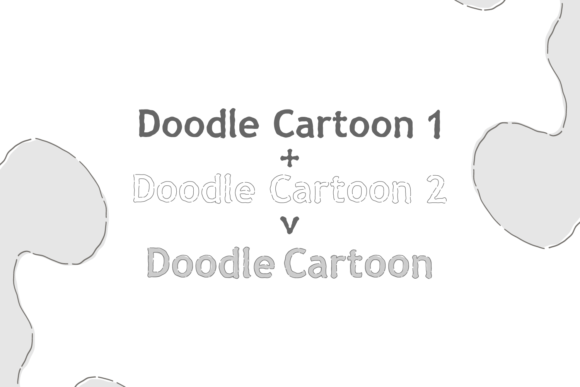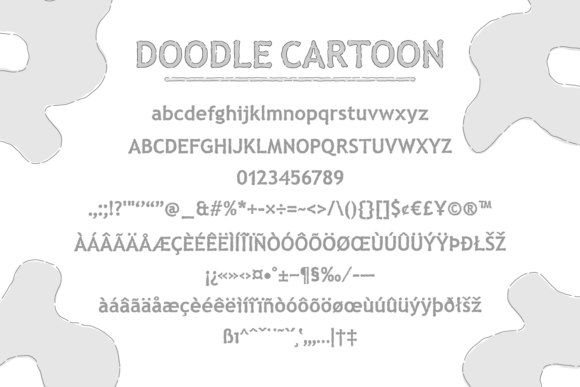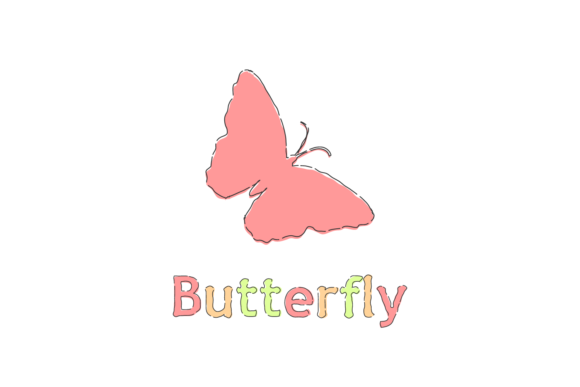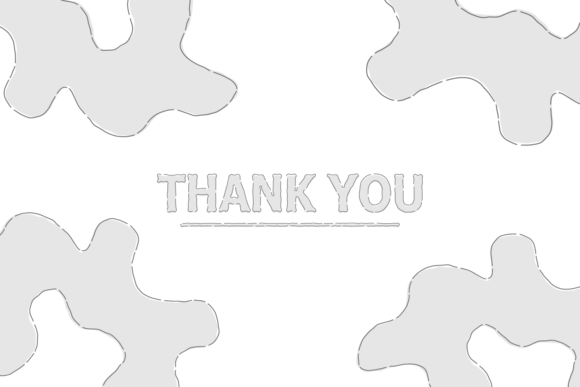
Doodle Cartoon Font: Elevate Your Designs with a Vintage Twist
Are you tired of using the same old fonts in your designs? Do you want to add a touch of personality and whimsy to your creations? Look no further than the Doodle Cartoon font, a cool, vintage-styled display font that’s sure to become a staple in your font library.
The Charm of Doodle Cartoon Font
Doodle Cartoon font is a unique and eye-catching typeface that’s perfect for adding a playful touch to your designs. Its vintage style is reminiscent of classic cartoons and comics, evoking a sense of nostalgia and fun. With its bold lines, irregular shapes, and quirky charm, this font is sure to stand out in any design.
One of the best things about Doodle Cartoon font is its versatility. No matter the topic or theme, this font can be used to elevate any creation. Whether you’re designing a logo, a poster, a t-shirt, or a social media graphic, Doodle Cartoon font is sure to add a touch of personality and style. Its bold and playful design makes it perfect for:
• Headlines and titles
• Logos and branding
• Posters and flyers
• T-shirts and merchandise
• Social media graphics and ads
Why Doodle Cartoon Font is a Must-Have
So, why should you add Doodle Cartoon font to your font library? Here are just a few reasons:
• Unique style: Doodle Cartoon font has a one-of-a-kind style that’s sure to set your designs apart from the crowd.
• Easy to read: Despite its playful design, Doodle Cartoon font is easy to read, even in smaller sizes.
• Highly versatile: This font can be used for a wide range of design projects, from logos to social media graphics.
• Great for kids and adults alike: Doodle Cartoon font is perfect for designs aimed at kids, but it’s also fun and playful enough for adult designs.
Tips for Using Doodle Cartoon Font
Here are a few tips for getting the most out of Doodle Cartoon font:
• Use it as a display font: Doodle Cartoon font is perfect for headlines and titles, so use it to add a pop of personality to your designs.
• Experiment with colors: This font looks great in bold, bright colors, so don’t be afraid to get creative with your color palette.
• Pair it with other fonts: Doodle Cartoon font pairs well with clean, simple fonts, so try pairing it with a sans-serif font for a fun and modern look.
Doodle Cartoon font is a cool, vintage-styled display font that’s sure to become a staple in your font library. Its unique style, versatility, and ease of use make it perfect for a wide range of design projects. Whether you’re a designer, crafty DIY enthusiast, or just someone who loves to create, Doodle Cartoon font is a must-have. So why wait? Download Doodle Cartoon font today and start adding a touch of personality and whimsy to your designs!